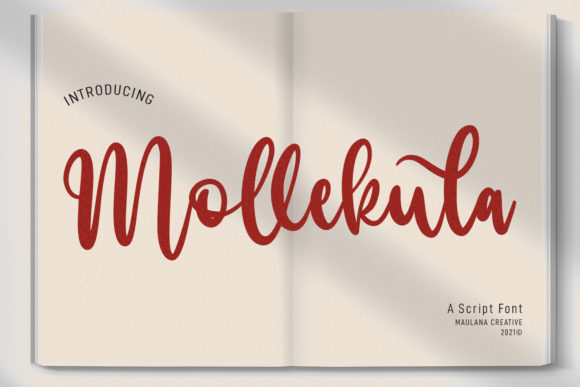
About Mollekula Script Font
Mollekula Script is a beautiful and light handwritten font, featuring a unique feel and a stunning impact. It will add a luxury spark to any design project that you wish to create!